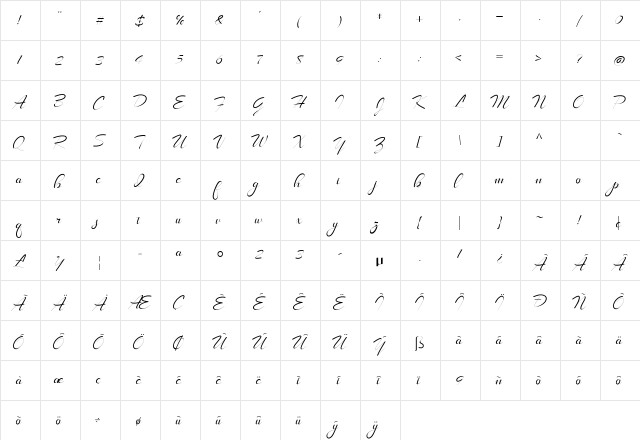
LongShine Script Regular
Design Context for LongShine Script Typeface
LongShine Script flows with the natural rhythm of handwritten lettering, making it ideal for designs that call for warmth and personal expression.
Font Pairing: Combine LongShine Script with a simple geometric sans for maximum contrast — the tension between flowing curves and clean structure is a classic typographic pairing.
Pro Tip: Pair LongShine Script with a clean sans-serif for supporting text. The contrast between fluid script and geometric structure creates an elegant typographic hierarchy.